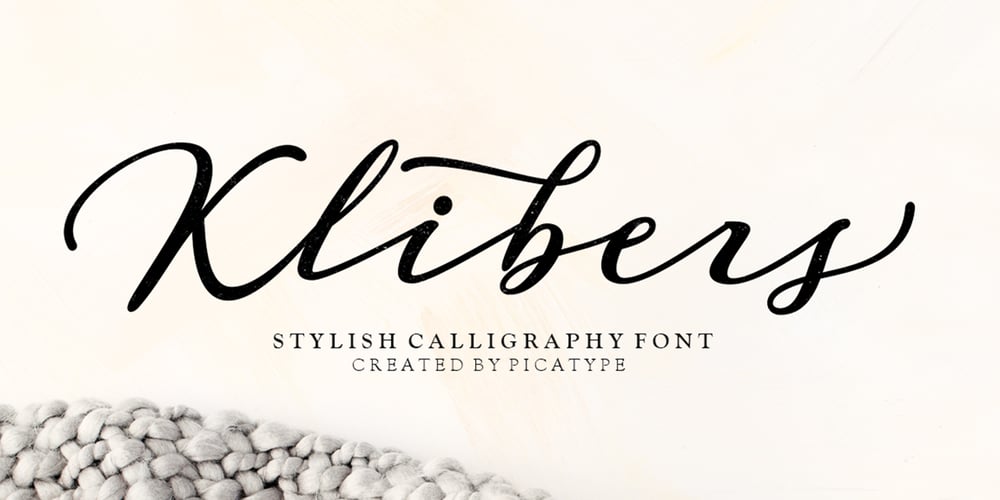
Klibers
Klibers font
Klibers Font Family was designed by Akmal Yusar and published by Picatype. Klibers contains 2 styles and family package options. A new modern calligraphy font that features a varying baseline, smooth line, classic and elegant touch. Klibers Script features 350+ glyphs and 107 alternate characters. It comes with a handy set of OpenType stylistic, use the beautiful ligatures, alternates and swashes. You need a program that supports OpenType features such as Adobe Illustrator CS, Adobe Photoshop CC, Adobe Indesign, Microsoft Word 2010. It is perfect for logo, greetings, branding, quotes, prints, invitations and crafting. All lowercase letters include alternates, beginning & end swashes, that makes the font look fabulous! These are all coded with PUA Unicode. Mac users can use Font Book and Windows users can use Character Map to view and copy any of the extra characters to paste into your favourite text editor/app.Klibers Script only available for uppercase letters, numbers, punctuation and all fonts are available in multilingual support. Thanks and have a wonderful day 🙂